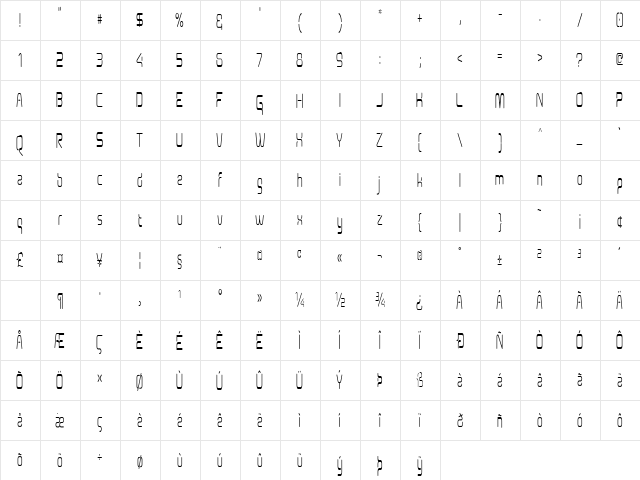
Aunchanted Condense Regular
Design Context for Aunchanted Condense Typeface
Aunchanted Condense takes a measured approach to typography — its balanced proportions and neutral character make it a reliable workhorse for both digital and print work. Its narrow stance lets it pack a punch even in space-constrained designs.